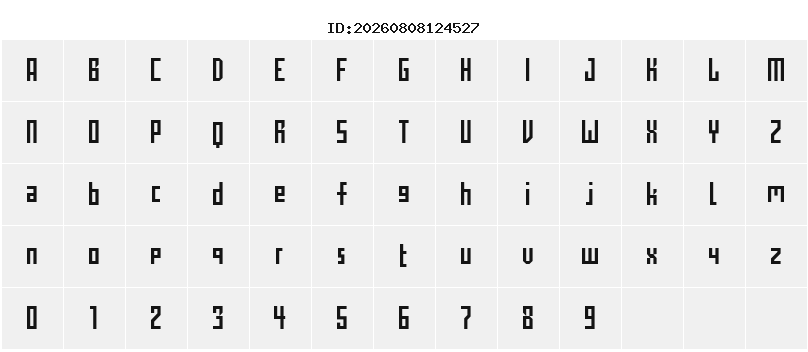
• Font Name: Pop
About Pop.ttf
Pop.ttf is a modern, elegant sans-serif font designed for ultimate readability and visual harmony. Perfect for branding, headlines, web design, and print materials.